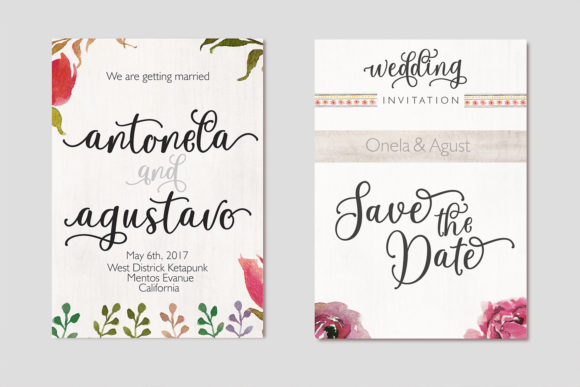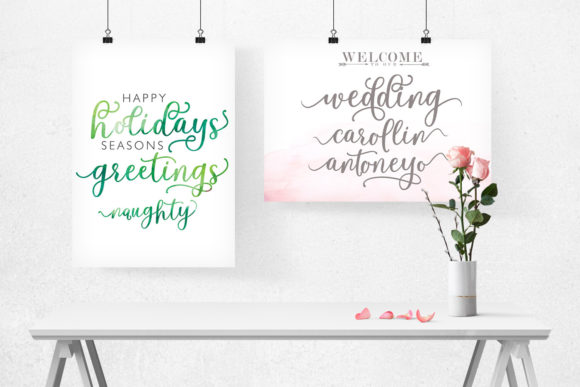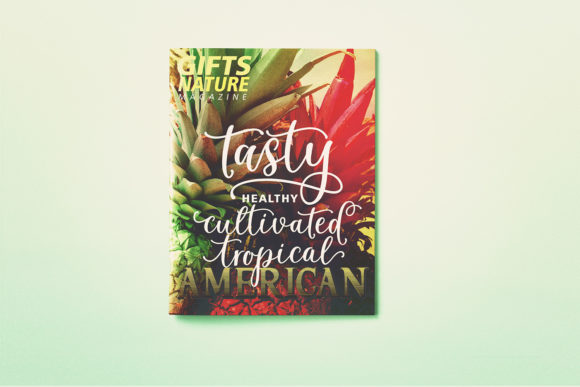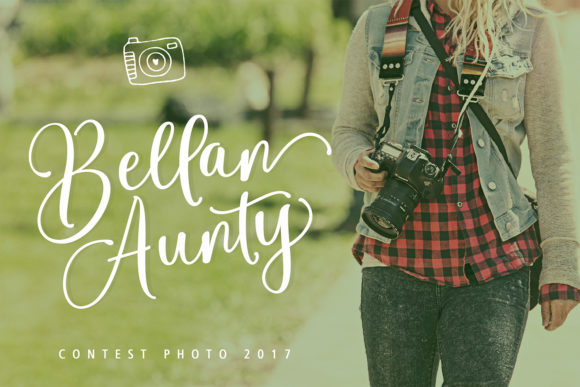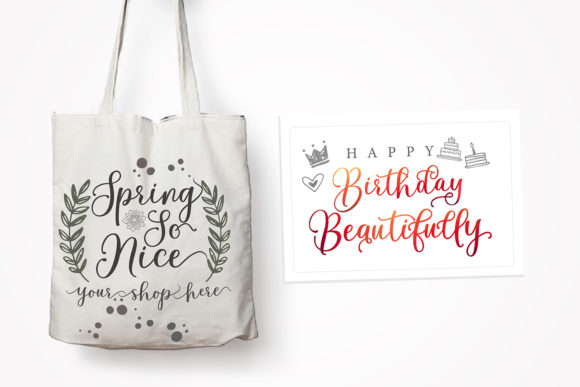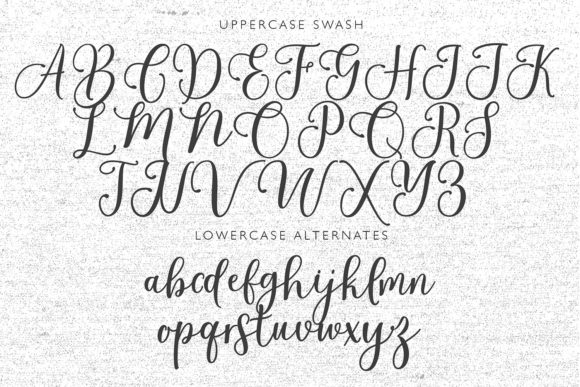
Cabelita Script Font: Elevate Your Creative Projects with Elegance and Sophistication
Are you a designer or crafter looking for a unique and trendy font to add a touch of elegance to your creative projects? Look no further than the Cabelita Script Font. This beautiful script font is designed to bring a natural and gentle feel to your designs, making it perfect for a wide range of applications.
What Makes Cabelita Script Font Special?
Cabelita is a script font that boasts a unique character, setting it apart from other fonts in its category. Its trendy and natural look makes it an excellent choice for designers and crafters who want to add a touch of sophistication to their work. Whether you’re creating wedding invitations, party flyers, or greeting cards, Cabelita Script Font is sure to highlight the beautiful aspects of your creative projects and ideas.
Perfect for Various Creative Projects
Cabelita Script Font is a versatile font that can be used for a wide range of creative projects, including:
- Wedding invitations and ceremony cards
- Party flyers and event invitations
- Graduation announcements and diplomas
- Birthday cards and party decorations
- Gathering and reunion invitations
- Prints and posters
- Banners and signs
- Blogs and social media graphics
- Clothing and apparel designs
- Quotes and inspirational graphics
One of the best features of Cabelita Script Font is that it’s PUA (Private Use Area) encoded. This means that you can access all of the glyphs and swashes with ease, giving you more creative freedom and flexibility when working on your projects. With PUA encoding, you can easily insert special characters and flourishes into your text, making it even more beautiful and eye-catching.
Why Choose Cabelita Script Font?
So, why should you choose Cabelita Script Font for your creative projects? Here are just a few reasons:
- Unique and trendy design: Cabelita Script Font has a unique and trendy design that will set your projects apart from the rest.
- Natural and gentle feel: The font’s natural and gentle feel makes it perfect for creating elegant and sophisticated designs.
- Versatile: Cabelita Script Font can be used for a wide range of creative projects, from wedding invitations to clothing designs.
- PUA encoded: The font’s PUA encoding makes it easy to access all of the glyphs and swashes, giving you more creative freedom.
Tips for Using Cabelita Script Font
Here are a few tips for using Cabelita Script Font in your creative projects:
- Pair it with a sans-serif font: Pair Cabelita Script Font with a sans-serif font for a beautiful and modern contrast.
- Use it for headings and titles: Cabelita Script Font is perfect for headings and titles, where you want to make a bold and elegant statement.
- Experiment with different colors: Try out different colors and textures to add depth and interest to your designs.
- Don’t be afraid to get creative: With PUA encoding, you can easily insert special characters and flourishes into your text. Don’t be afraid to get creative and try out new things!
| Font Name | Cabelita Script Font |
| Author | genesislabstudio |